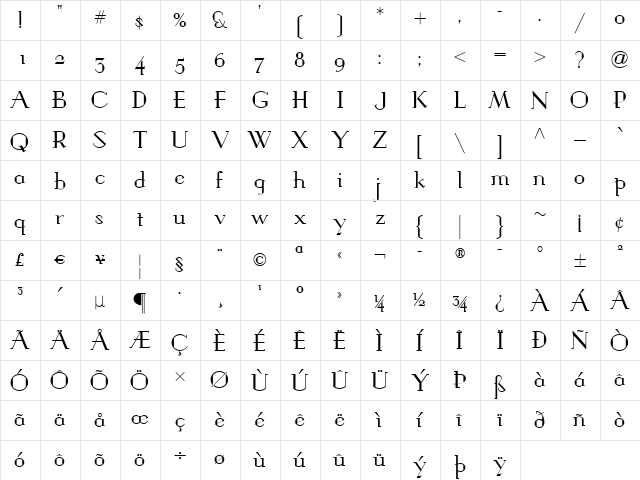
SavoyRomanNF Regular
Design Context for SavoyRomanNF Typeface
SavoyRomanNF offers clean, dependable letterforms without strong stylistic allegiance, making it a practical choice for designers who need flexibility.